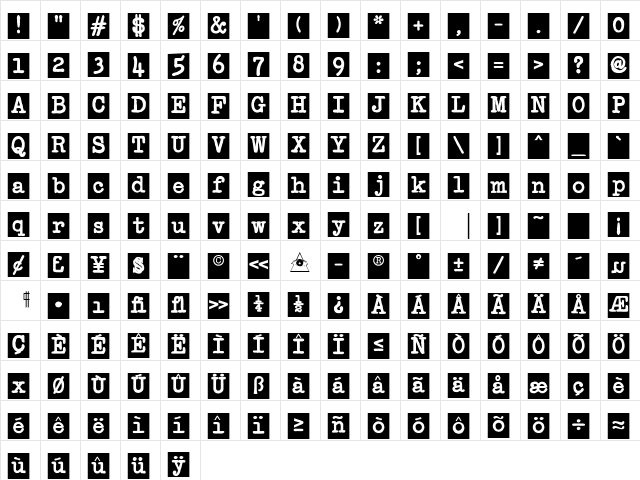
Passport Block Regular
| Foundry | CONIGLIO USA |
Design Context for Passport Block Typeface
Passport Block brings high-energy athletic personality to the page — its confident, muscular forms are built for impact.
Built for sports team identities, athletic apparel, event posters, and high-energy promotional material.
Font Pairing: Use alongside a condensed or geometric sans for supporting copy — keep the pairing bold, functional, and free of ornament.
Pro Tip: Passport Block thrives on contrast — try it large, bold, and tight against a clean background for maximum visual impact.